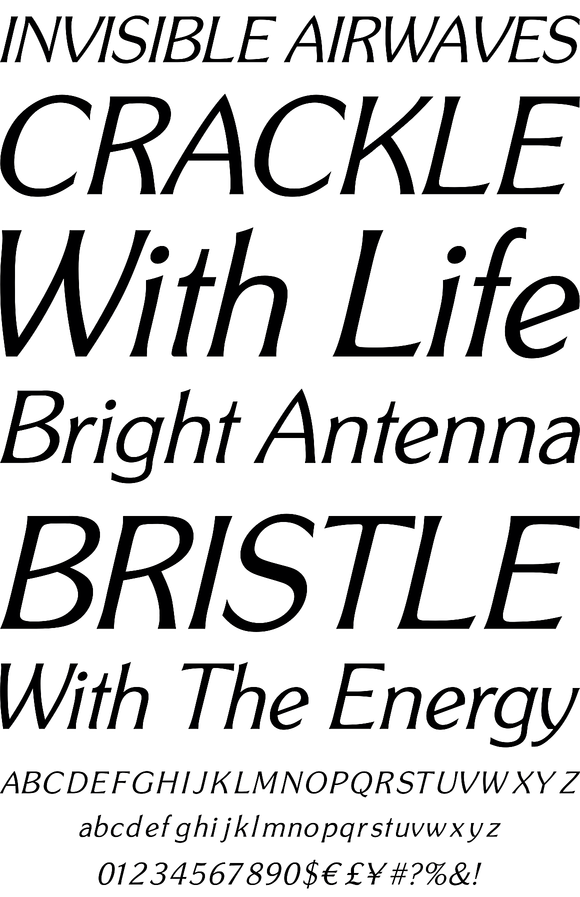
Souvenir Gothic
Designed by Phil Martin in 1977, Souvenir Gothic is an antique, classic and very diverse serif type design. Contains eight different weights, including an Antique style for a more distressed and raw type approach.